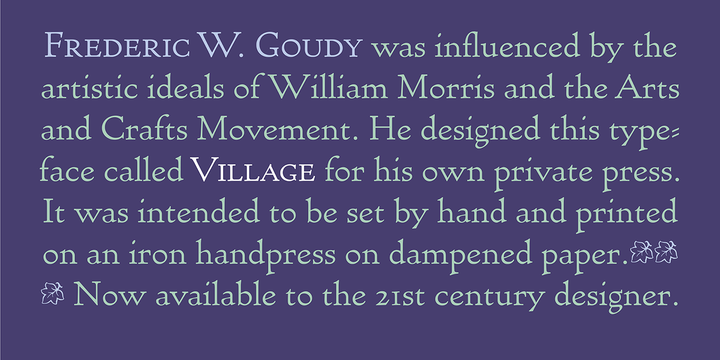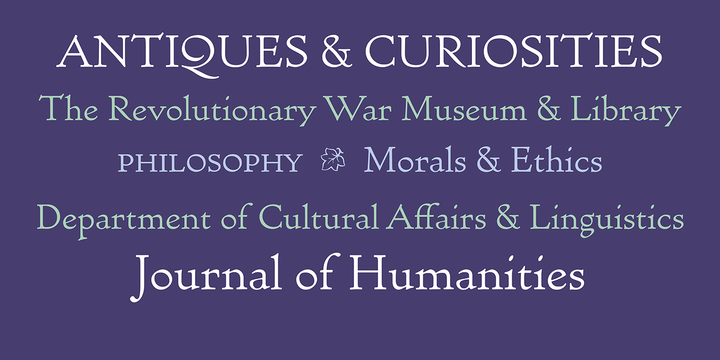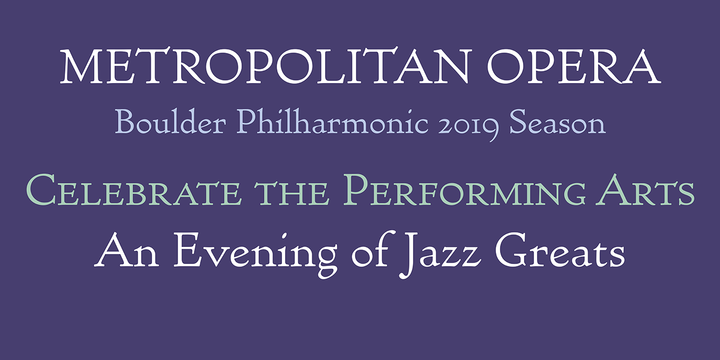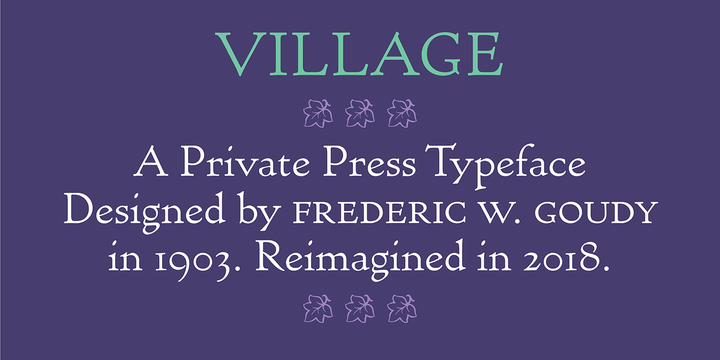
Frederic Goudys Village typeface was originally used exclusively for his Village Press publications.
Designed in 1903, Village is a Venetian book face with sturdy, open forms.
Steve Matteson digitized this typeface from books printed by the Village Press.
An excellent companion to any of Goudys other typefaces.